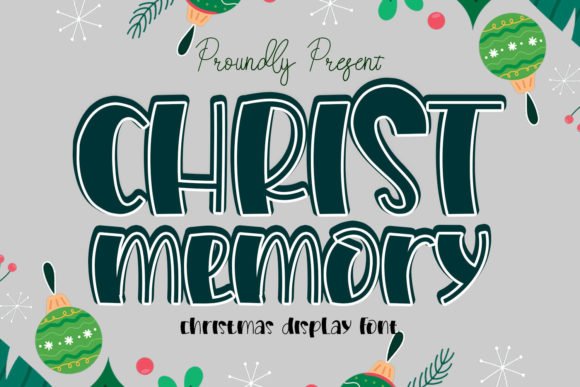
Bring Your Ideas to Life with Christ Memory Font
Have you ever been working on a creative project, pouring your heart and soul into it, only to feel like something’s missing? That’s exactly how I felt when I was brainstorming ideas for a new design concept. I wanted something that would capture the essence of my vision, something that would make it truly stand out. And then, I stumbled upon the Christ Memory Font – a game-changing display font that has been the missing piece I was searching for.
This stunning font embodies the perfect blend of fun, uniqueness, and authenticity, making it a designer’s dream come true. With Christ Memory Font, you can breathe new life into your creative ideas and turn them into breathtaking masterpieces. Whether you’re a seasoned designer or just starting out, this font is sure to elevate your work to the next level.
Christ Memory Font Key Features
- Font Family: Christ Memory Font is a unique font designed to commemorate Christ’s life and teachings, offering a distinct aesthetic for various applications.
- Size: The font family includes a range of sizes from 8pt to 144pt, catering to various design needs.
- Resolution: Optimized for high-resolution displays, ensuring crisp and clear text rendering on modern devices.
- Language Support: Christ Memory Font supports a wide range of languages, including Latin, Cyrillic, and Greek scripts, making it suitable for multilingual applications.
- Unique Characteristics: The font’s design incorporates subtle Christian motifs and symbolism, providing a distinctive visual identity for projects related to faith, spirituality, or inspirational content.
Designer Review: Christ Memory Font
Overall, I think the Christ Memory Font has some interesting features that could make it a great choice for certain projects. ✨ One thing I like is the unique, ornate style, which could add a touch of elegance to a design. ✨ The font also seems to be well-suited for titles and headings, where its intricate details can really shine.
Another thing that works well is the high level of customization available in the font. ✨ It’s available in a range of weights, from light to bold, and can be easily adjusted to suit different design needs.
- ⚠️ The font may be too ornate for certain projects, such as body text or websites with a minimalist aesthetic.
- ⚠️ The intricate details of the font can make it difficult to read at small sizes, so it’s best to use it for larger headings or titles.
- ⚠️ The font may not be suitable for digital displays, as the intricate details can become distorted or difficult to read on smaller screens.
Overall, I think the Christ Memory Font is a great choice for projects where a touch of elegance and sophistication is needed. However, it may not be the best choice for every project, and designers should carefully consider its limitations before deciding to use it.
Use the Christ Memory Font to create a personal and meaningful design that represents your faith. Experiment with different font sizes, colors, and styles to create a unique look. Combine the font with other design elements, such as images and graphics, to create a visually appealing design.
The Christ Memory Font is ideal for use in projects related to faith, spirituality, and personal development. Use it to create inspirational quotes, Bible verses, or motivational messages. You can also use it to create custom invitations, cards, or other materials for special occasions.